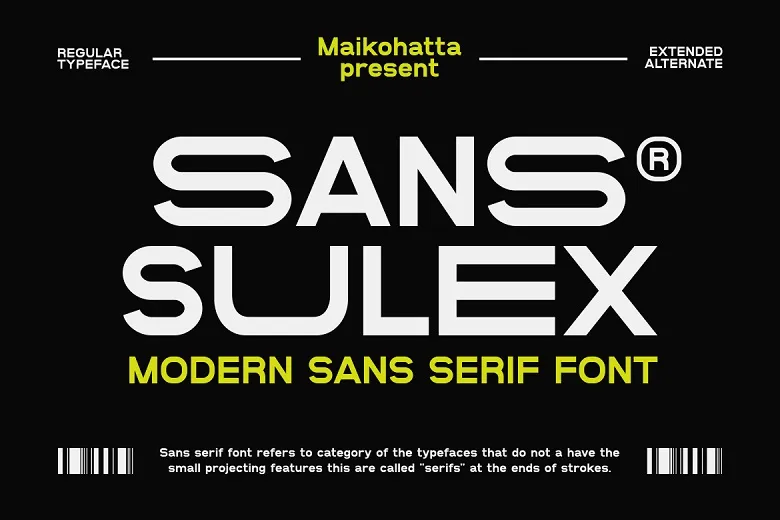
Sans Sulex Font is a contemporary sans serif font. This Font is rather versatile and can be applied to the majority of designs. Due to the clean and modern appearance, and the simplicity of the design, this font is suitable for the use in the field of graphic design and modern typography.